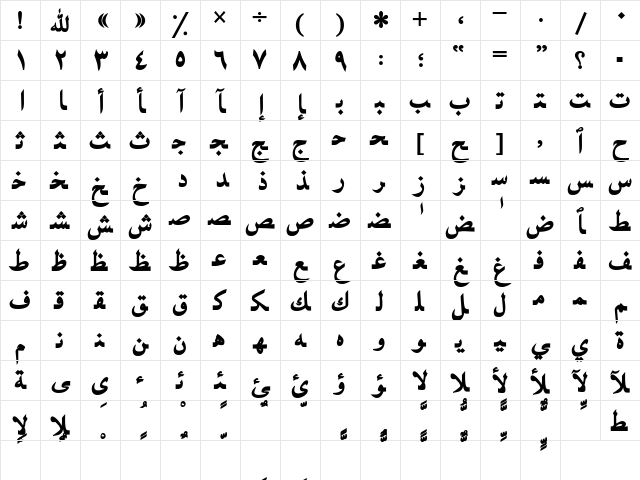
Arabic Bold Free Font
Arabic Bold
Arabic Family
Arabic Bold
Design Context for Arabic
Arabic is a composed and adaptable typeface that performs quietly and consistently across a wide range of design contexts. Its bold stroke weight gives it real presence on the page.